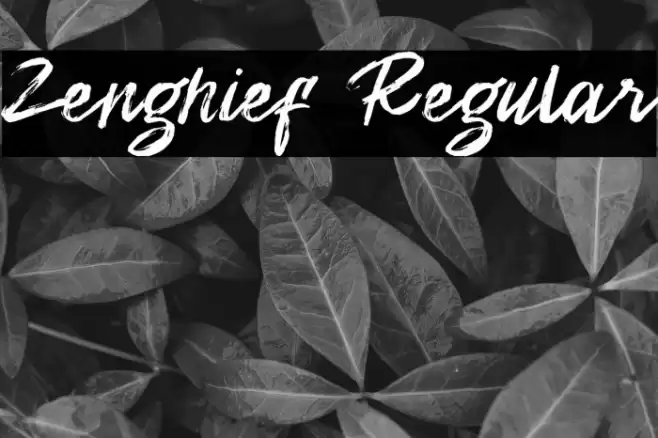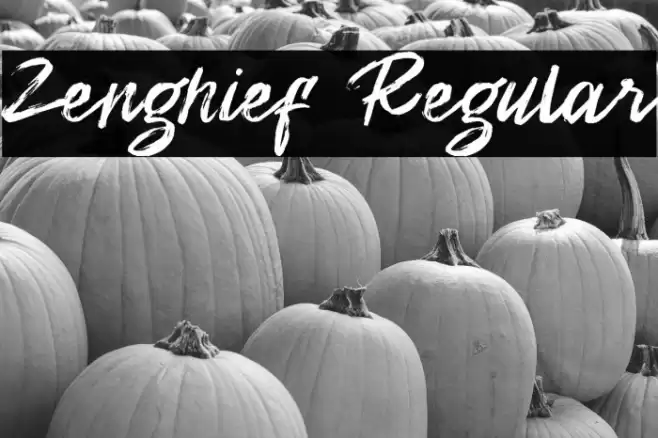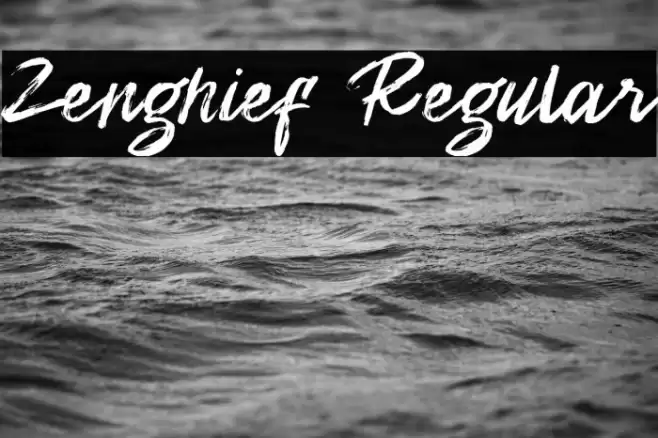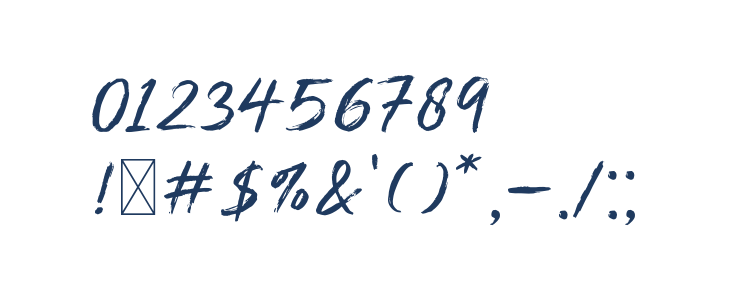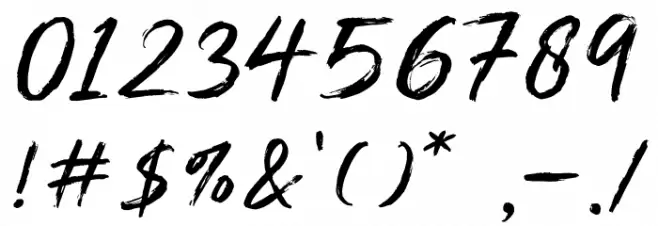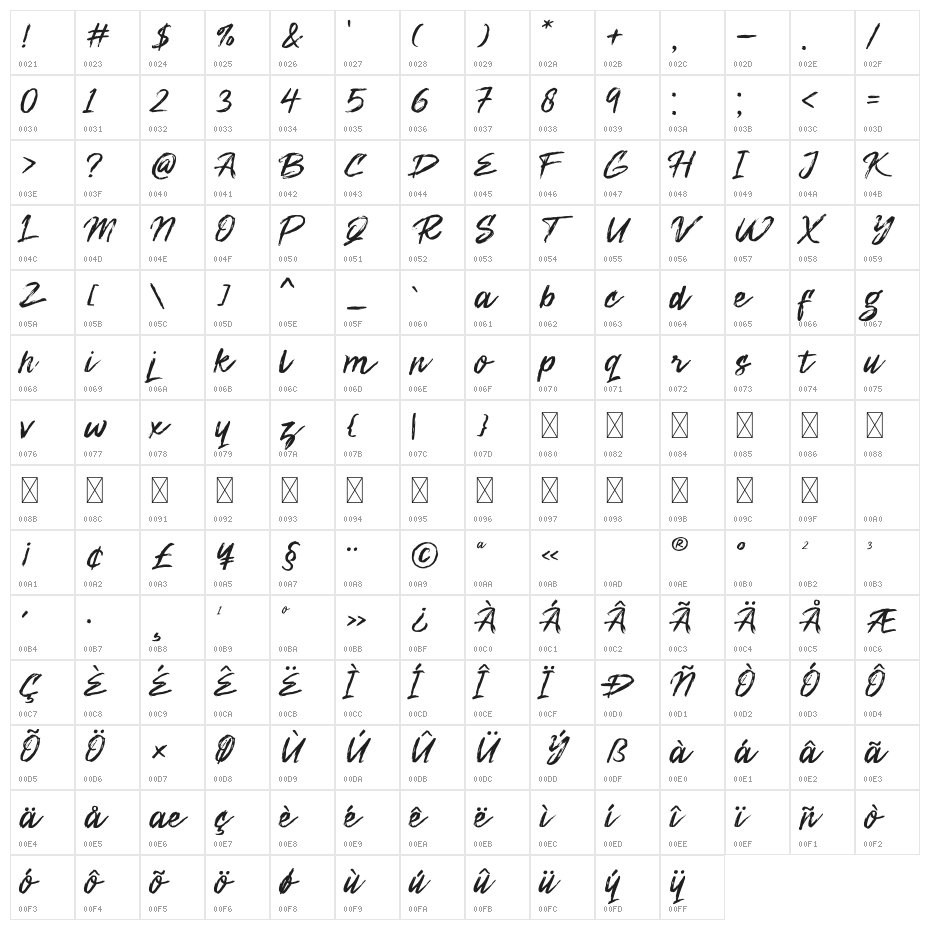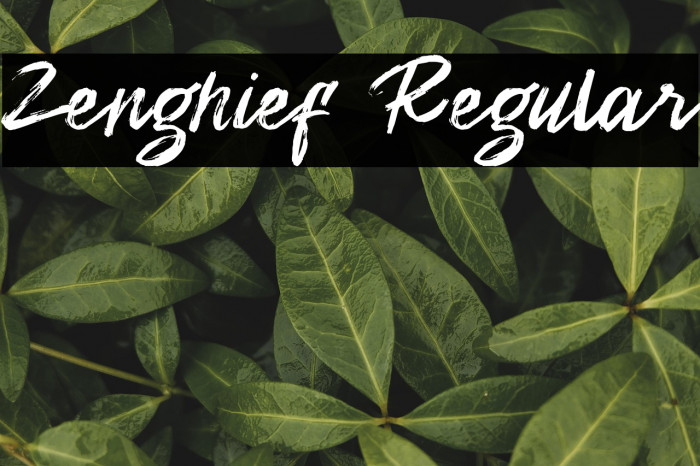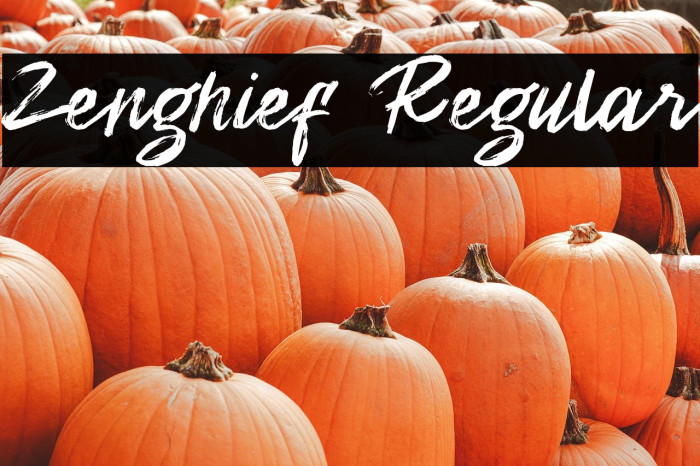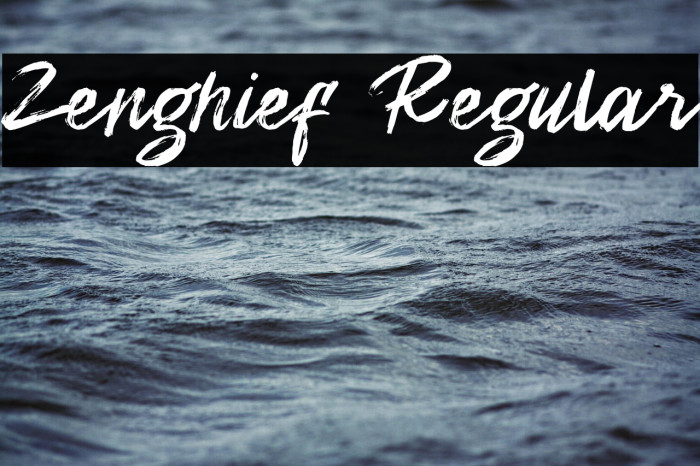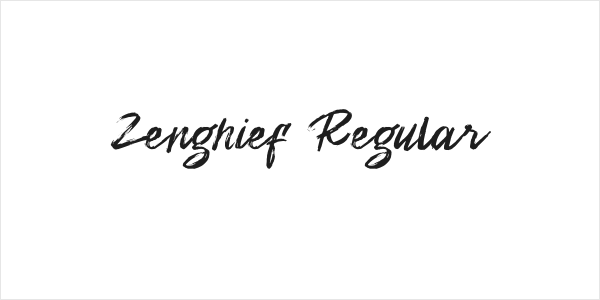
Zenghief Regular Font
Zenghief Regular Description
This font exudes a dynamic and energetic style, characterized by its brush-like strokes and fluid, cursive design. The uppercase and lowercase letters maintain a consistent flow, with each character seamlessly connecting to the next. The numbers and special characters follow the same expressive style, adding a sense of movement and artistic flair. The overall appearance is bold and impactful, making it suitable for creative and expressive projects. The strokes vary in thickness, providing a medium contrast that enhances its visual appeal. This font is ideal for projects that require a touch of creativity and personality.
A dynamic, brush-style cursive font with medium contrast and artistic flair from Uncategorized fonts.
- Proposed Projects: Ideal for branding, posters, artistic projects, and expressive designs.